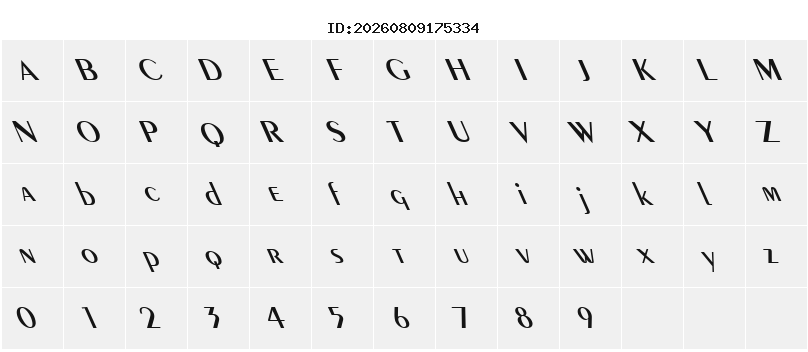
About Pare Reverse.ttf
Pare Reverse.ttf is a modern, elegant sans-serif font designed for ultimate readability and visual harmony. Perfect for branding, headlines, web design, and print materials.